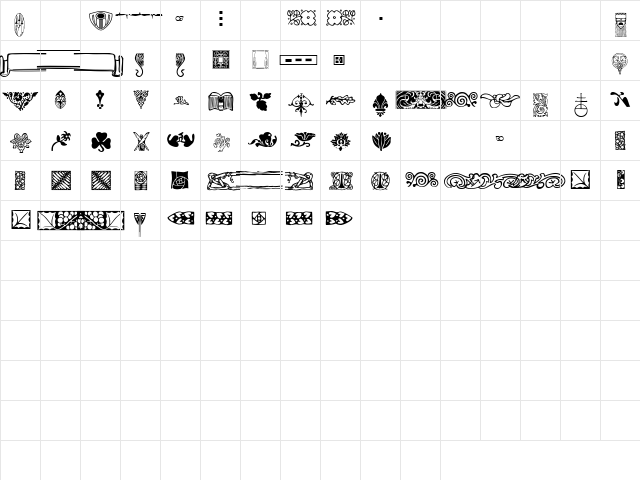
P22 Arts And Crafts OrnamentsTwo
Design Context for P22 Arts And Crafts Typeface
P22 Arts And Crafts is built around its visual character rather than neutral utility — its distinctive forms are designed to make an impression at display sizes.
Font Pairing: Pair with a clean neutral sans-serif for body copy to let P22 Arts And Crafts's character lead without overwhelming the composition.
Pro Tip: Use P22 Arts And Crafts exclusively at display sizes — it was designed to be seen, not read at length. Let a neutral companion handle body copy.